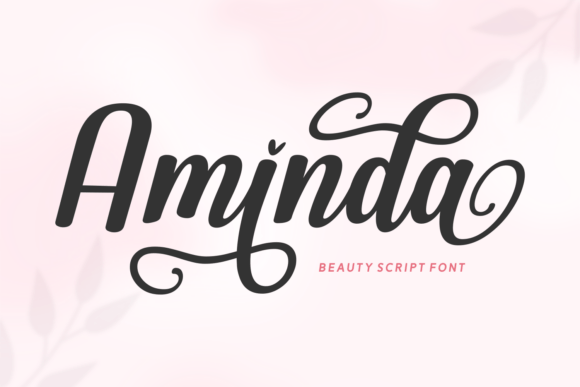
Aminda Font: Elevate Your Designs with Elegant Script Typography
In the world of typography, few fonts manage to strike a balance between elegance and readability. Aminda Font is one such exceptional typeface that brings a touch of sophistication to any design project. This beautiful script font features flowing letters with stylish curves and soft lines, making it perfect for creative endeavors that demand a bit of charm and flair.
What is Aminda Font?
Aminda Font is a stunning script typeface designed to add a dash of elegance to various design projects. Its unique blend of classic script elements and modern flair makes it an excellent choice for designers looking to create beautiful, eye-catching text. Whether you’re working on invitations, greeting cards, or other creative projects, Aminda Font is sure to impress.
Key Features of Aminda Font
- Elegant and Flowing Letters: Aminda Font boasts beautifully crafted letters that flow smoothly, creating a sense of continuity and harmony in any text.
- Stylish Curves and Soft Lines: The font’s stylish curves and soft lines add a touch of sophistication and charm, making it perfect for designs that require a bit of elegance.
- Easy to Read: Despite its elegant appearance, Aminda Font is remarkably easy to read, making it suitable for both digital and print designs.
- Fancy yet Legible: The font strikes an excellent balance between looking fancy and being legible, making it an excellent choice for a wide range of design projects.
Perfect Use Cases for Aminda Font
Aminda Font’s versatility makes it suitable for various design projects, including:
- Invitations: Add a touch of elegance to wedding invitations, birthday parties, and other special occasions.
- Greeting Cards: Create beautiful, heartfelt greeting cards for holidays, birthdays, and other celebrations.
- Creative Projects: Use Aminda Font to add a dash of charm to your creative projects, such as brochures, posters, and social media graphics.
Typography Tips for Using Aminda Font
To get the most out of Aminda Font, consider the following typography tips:
- Pair with Simple Fonts: Pair Aminda Font with simple, clean fonts to create a beautiful contrast and make your text more readable.
- Use for Headings and Titles: Use Aminda Font for headings and titles to add a touch of elegance and create visual interest.
- Experiment with Colors: Experiment with different colors to find the perfect match for your design and make your text stand out.
Font Pairing Suggestions for Aminda Font
Aminda Font pairs well with a variety of fonts. Here are some suggestions:
- Open Sans: A clean, modern sans-serif font that provides a beautiful contrast to Aminda Font’s elegance.
- Lato: A sleek, sans-serif font that complements Aminda Font’s flowing letters and stylish curves.
- Merriweather: A classic serif font that pairs well with Aminda Font’s elegance and sophistication.
In conclusion, Aminda Font is a stunning script typeface that can elevate your designs with its elegant, flowing letters and stylish curves. Its versatility, readability, and fancy appearance make it perfect for a wide range of design projects. By following the typography tips and font pairing suggestions outlined in this article, you can get the most out of Aminda Font and create beautiful, eye-catching text that leaves a lasting impression.